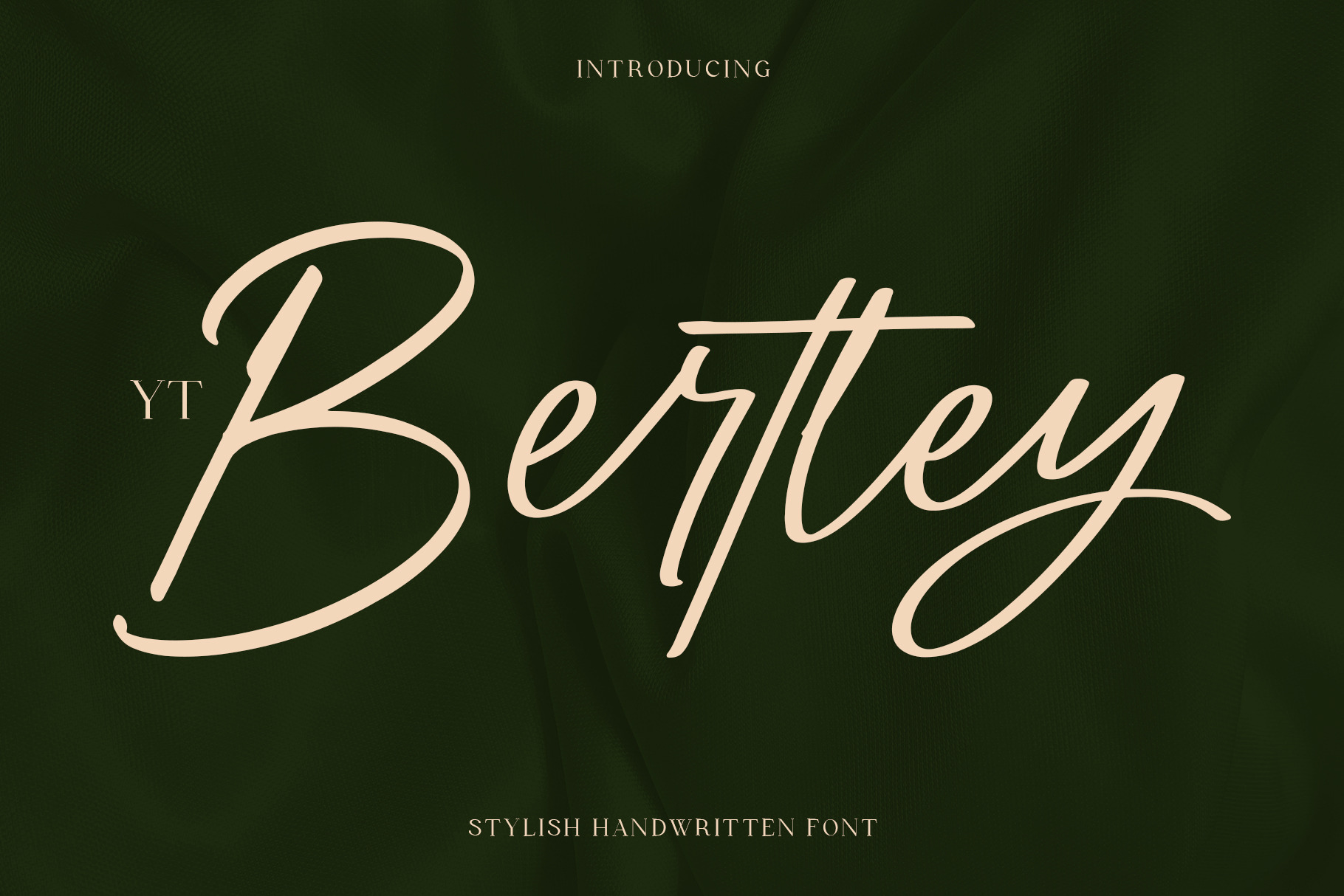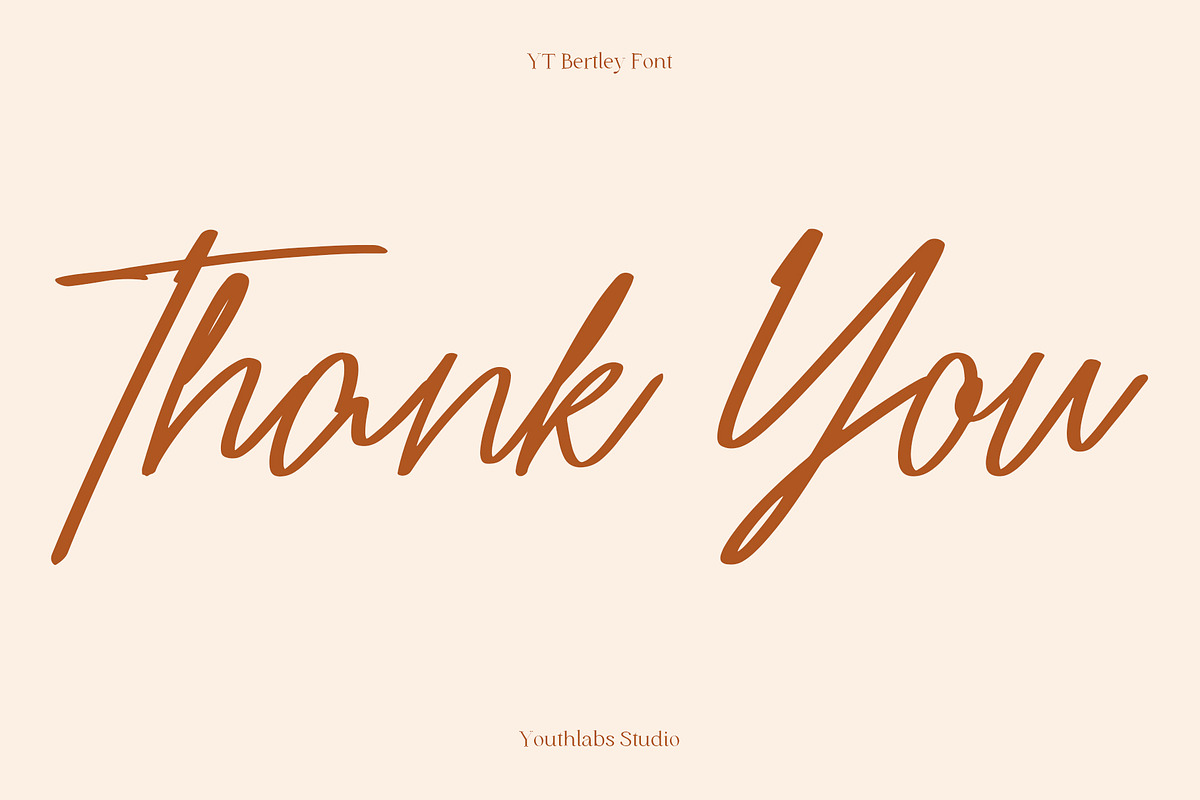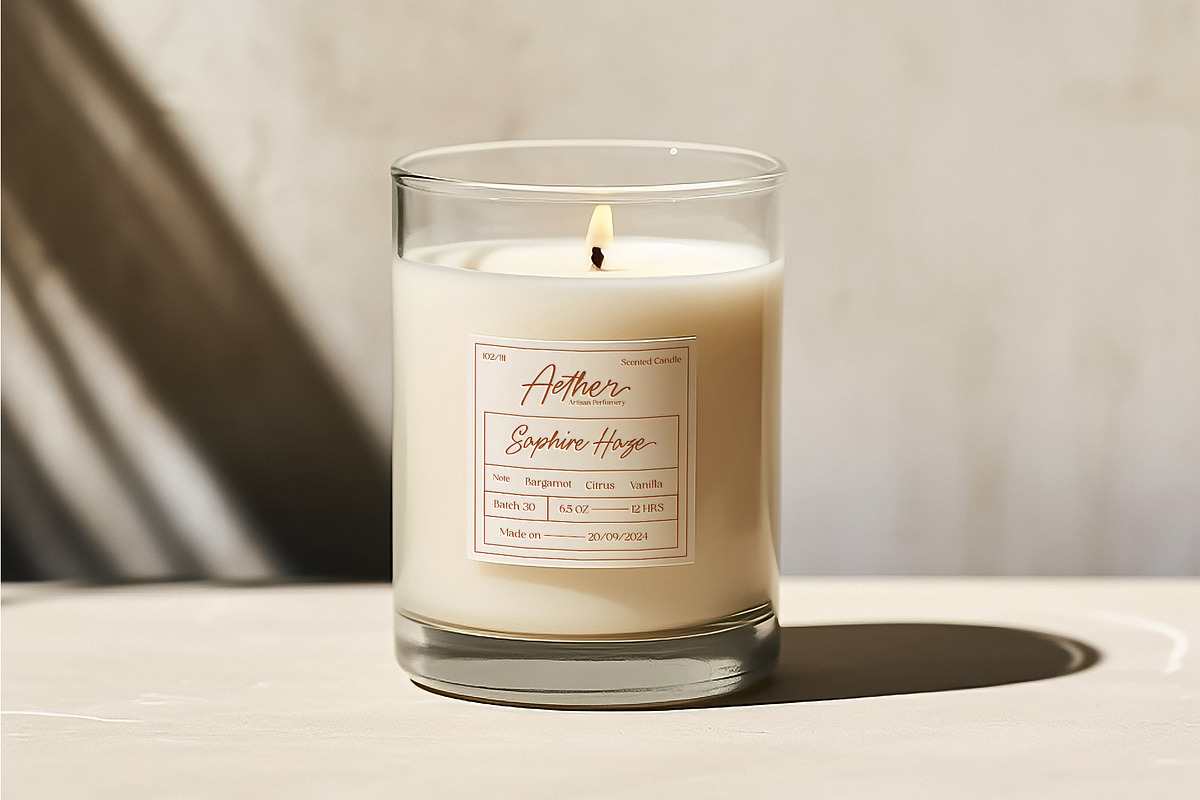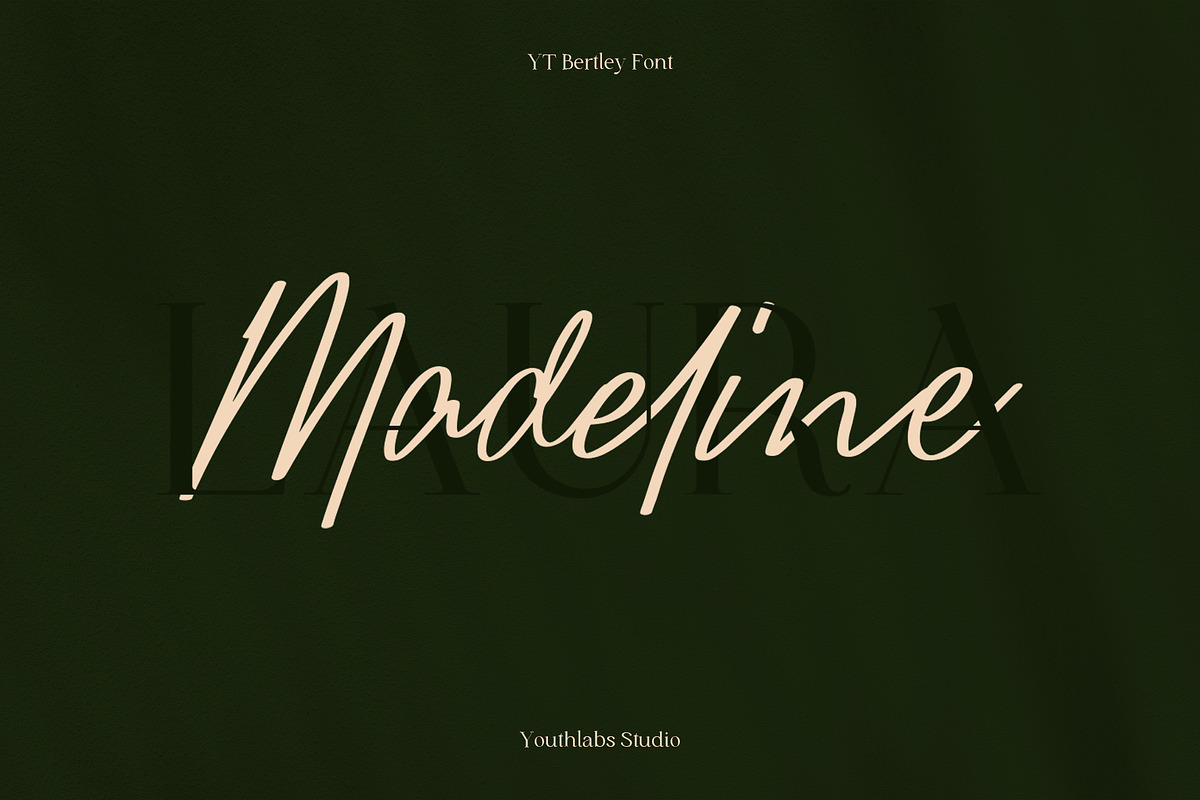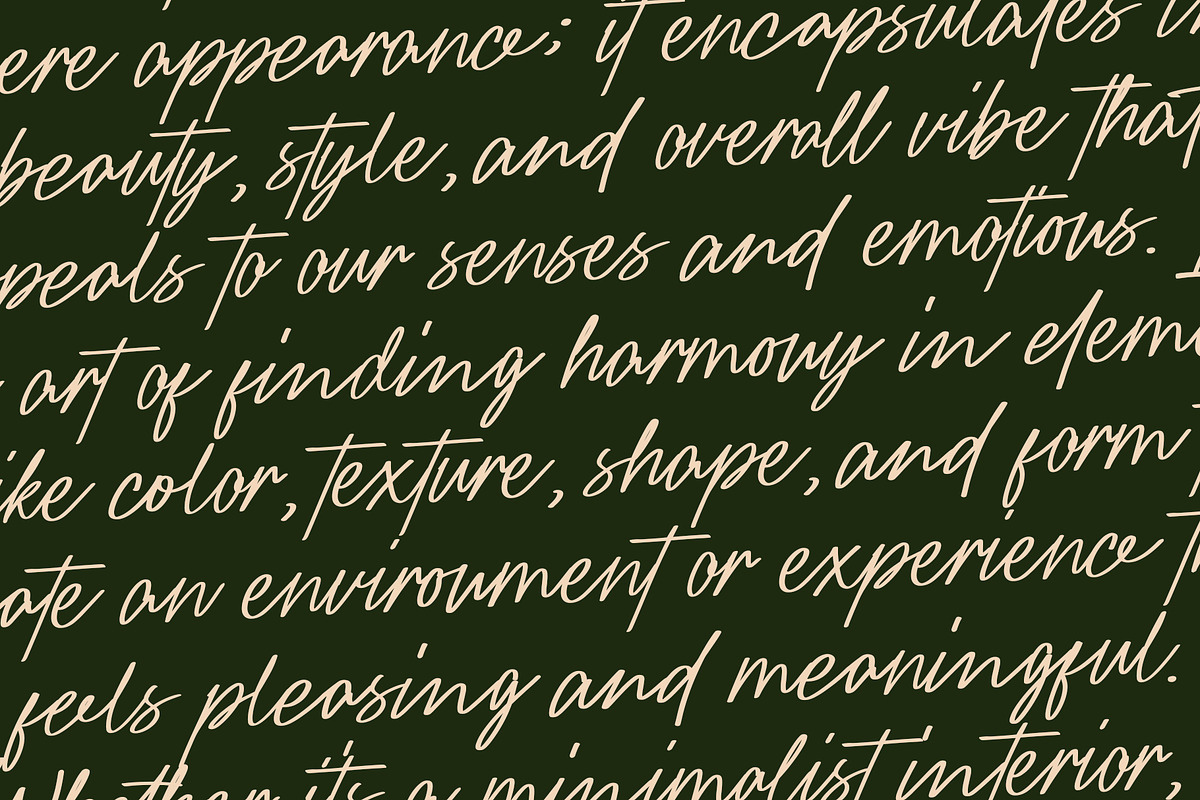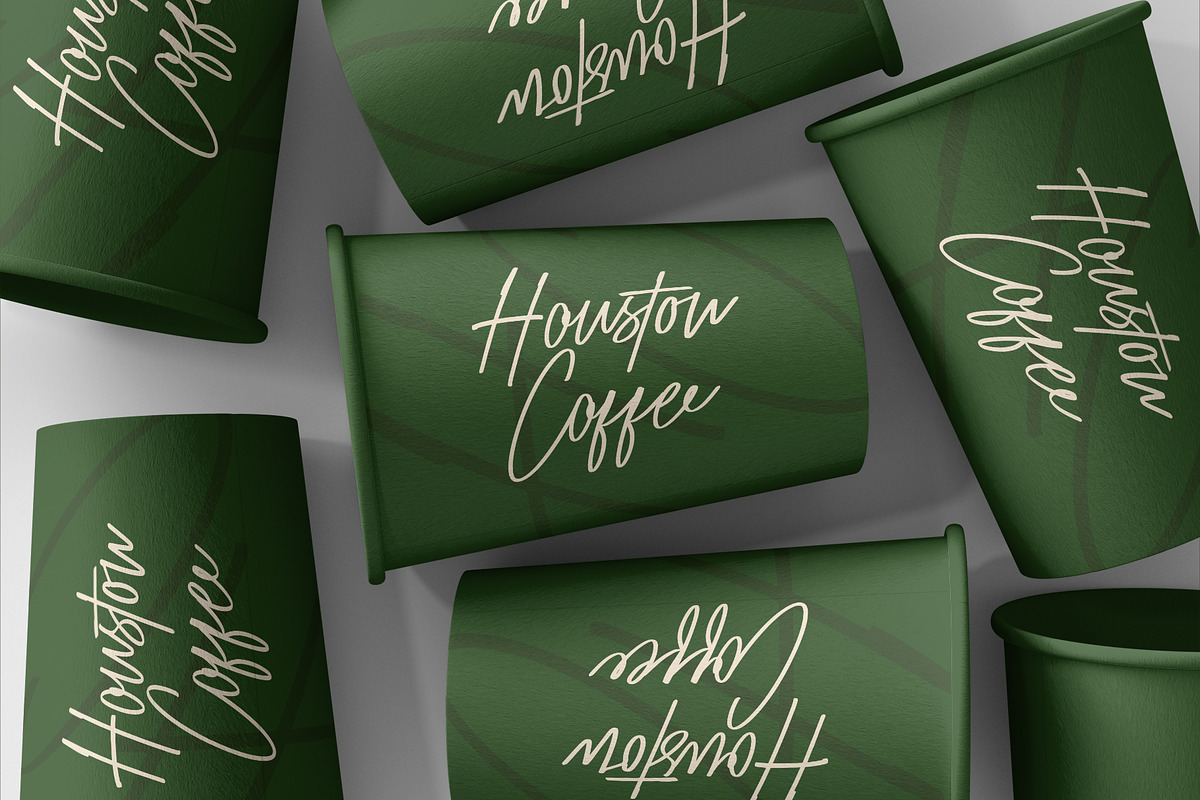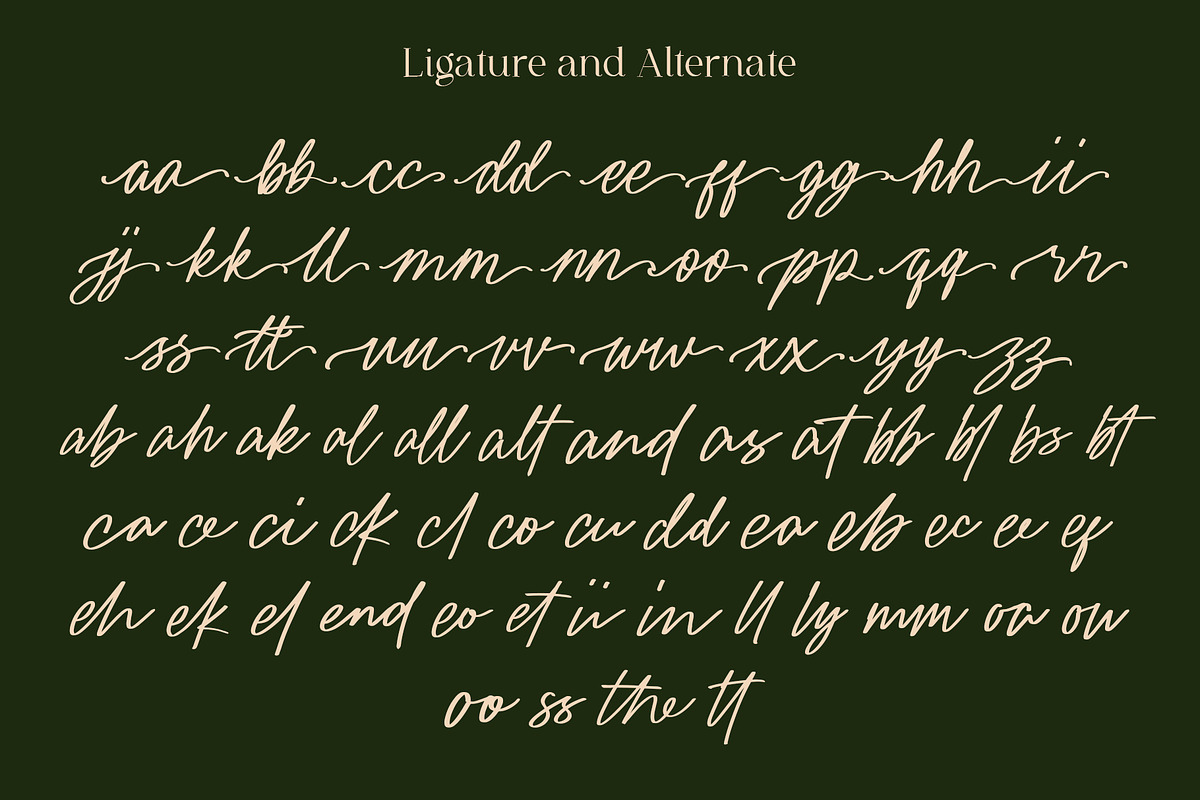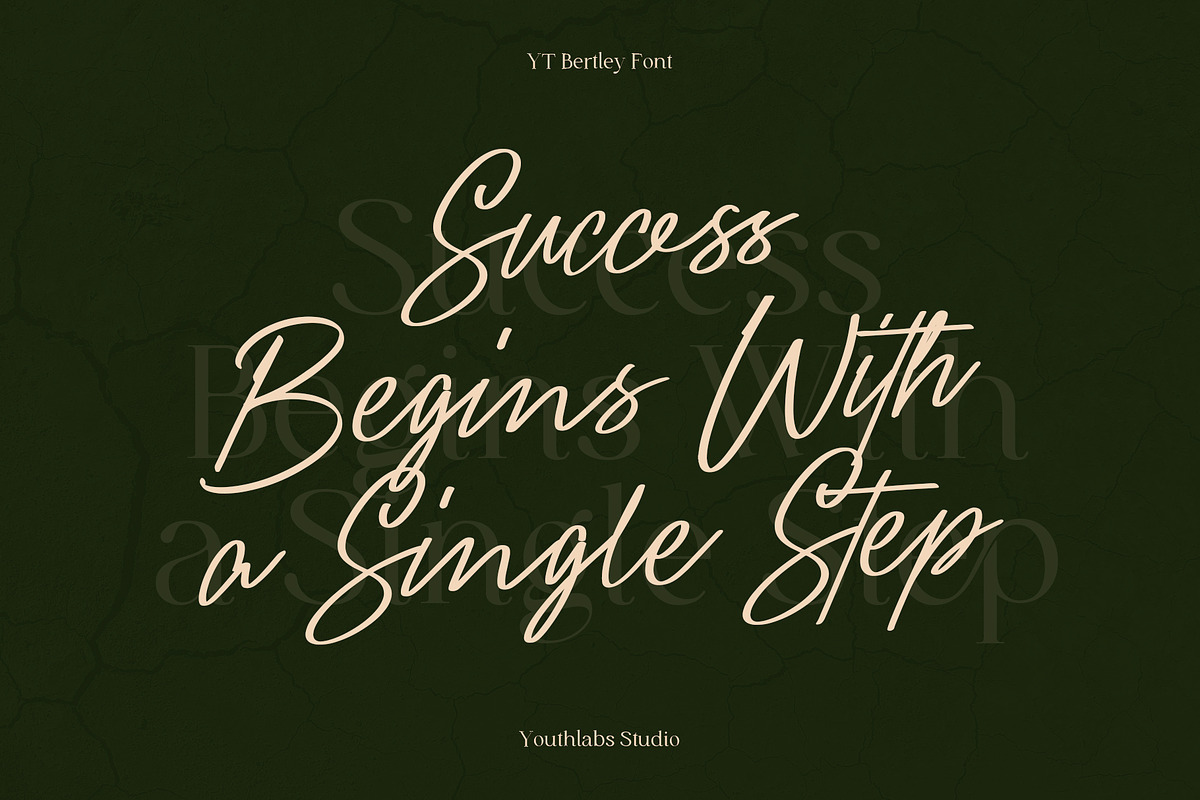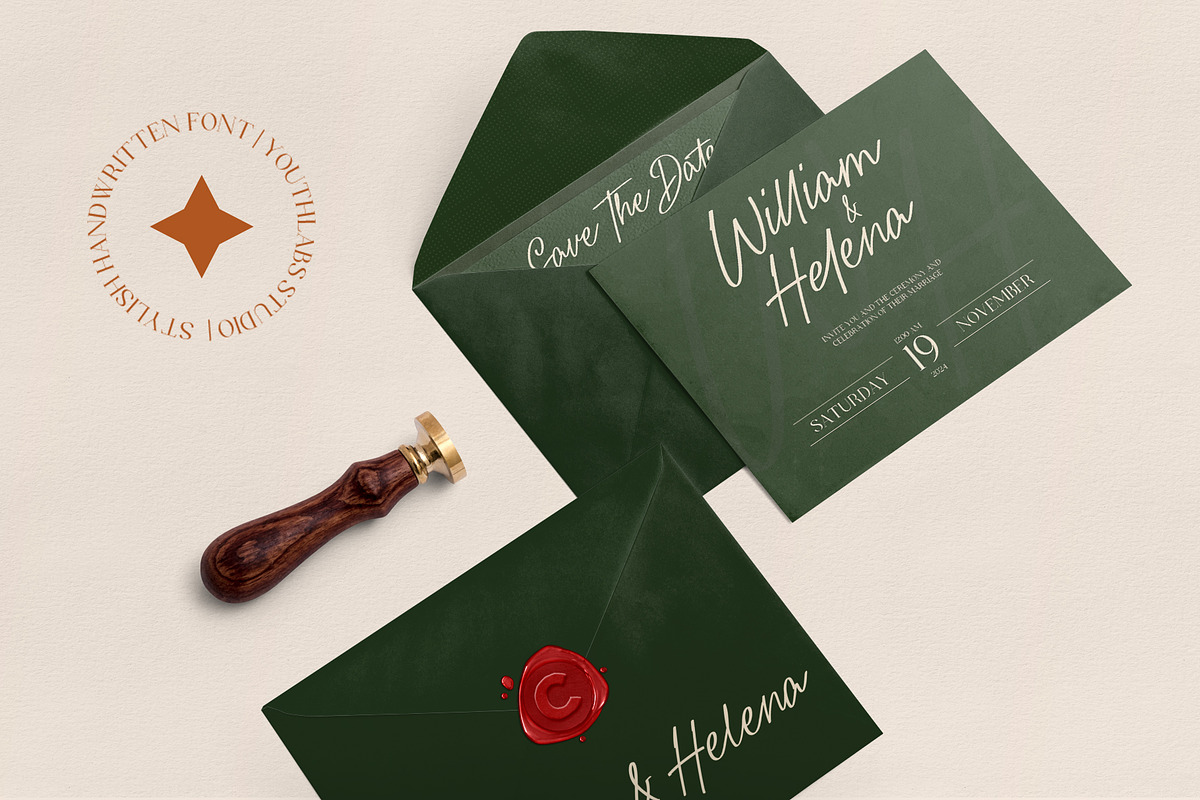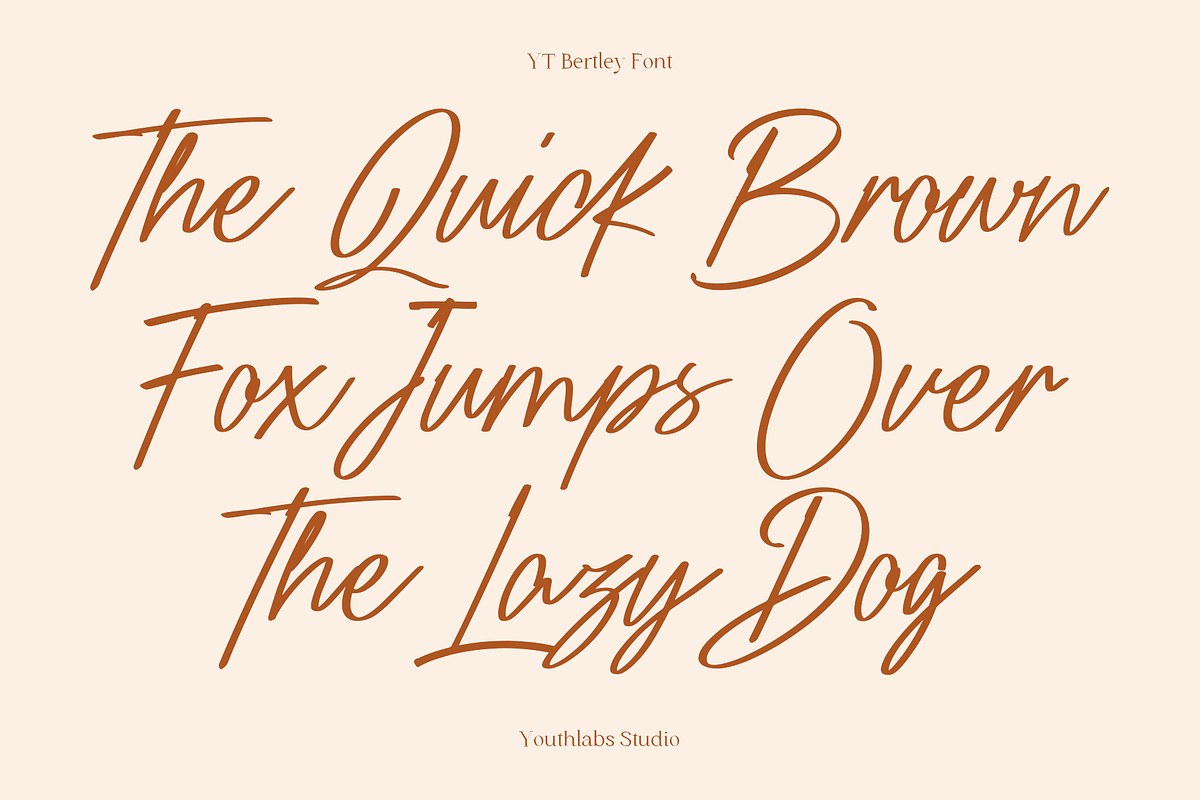
YT Bertley - Handwritten Font
Introducing YT Bertley, a Handwritten Script Font. YT Bertley is not just a font; it’s the essence of personal touch crafted into every letter. Designed to mimic the natural flow of handwriting, this script font brings warmth, authenticity, and a touch of elegance to your projects. Whether you’re creating heartfelt invitations, stylish branding, or social media posts that stand out, YT Bertley adds a beautifully crafted, handwritten charm that feels both personal and professional. Let your words flow effortlessly with YT Bertley – where every letter tells your story, beautifully.
- Opening Swash
- Ending Swash
- Opentype Support